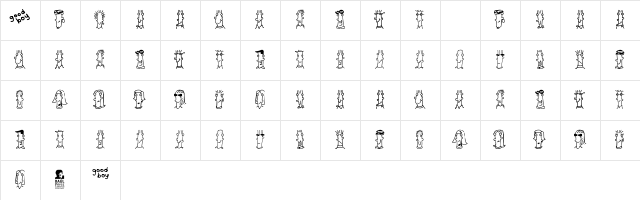
BUEN CHICO 1
Design Context for BUEN CHICO
BUEN CHICO is a composed and adaptable typeface that performs quietly and consistently across a wide range of design contexts.